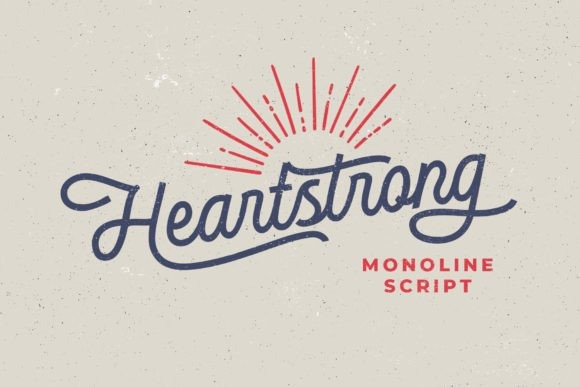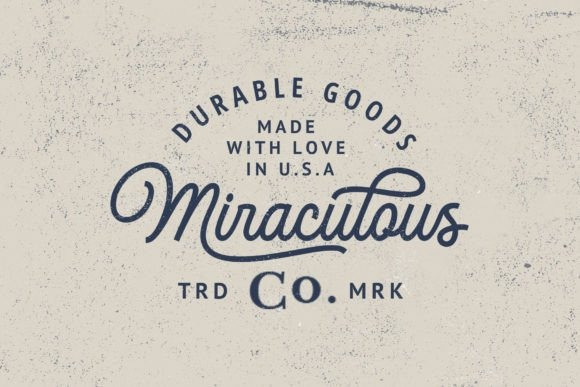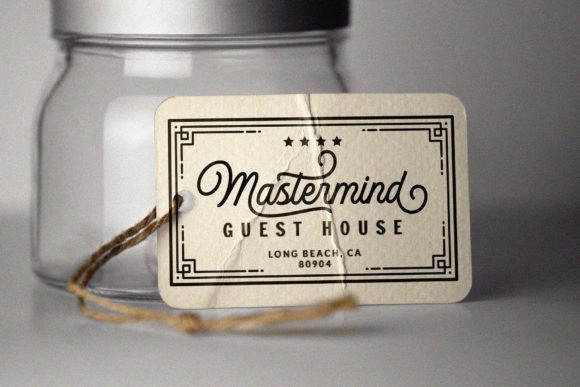
Heartstrong Font
Heartstrong is a monoline script font carefully crafted with personality. It easily complements traditional style logos, labels, package designs, lettering for t-shirts, and many others. Mix and match Heartstrong with a bunch of alternative characters to fit your project.